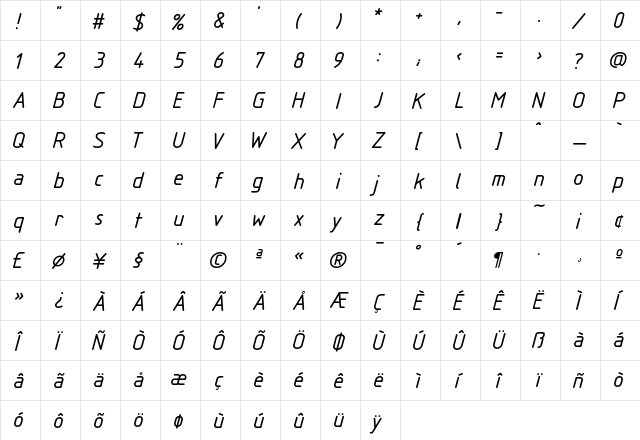
Isonorm3098 Italic
Design Context for Isonorm3098 Typeface
Isonorm3098 takes a measured approach to typography — its balanced proportions and neutral character make it a reliable workhorse for both digital and print work. The slanted form adds forward momentum and visual energy.
Pro Tip: Use Isonorm3098 for emphasis, pull quotes, and subheadings where its slanted energy can add rhythm to the layout.